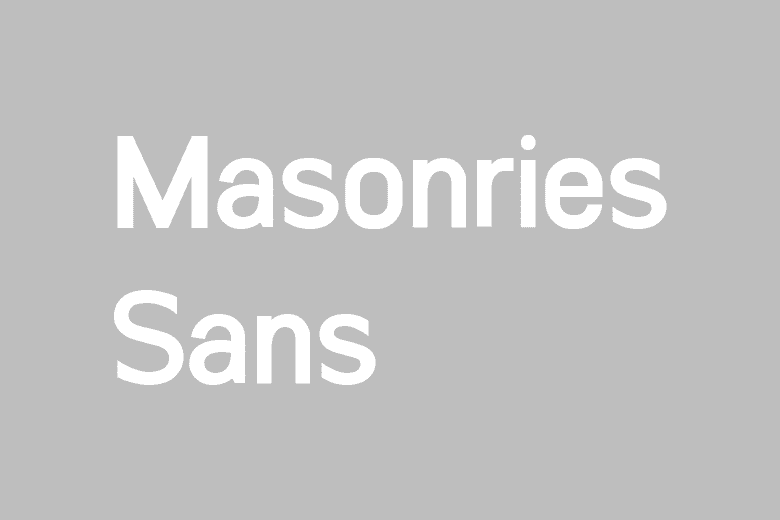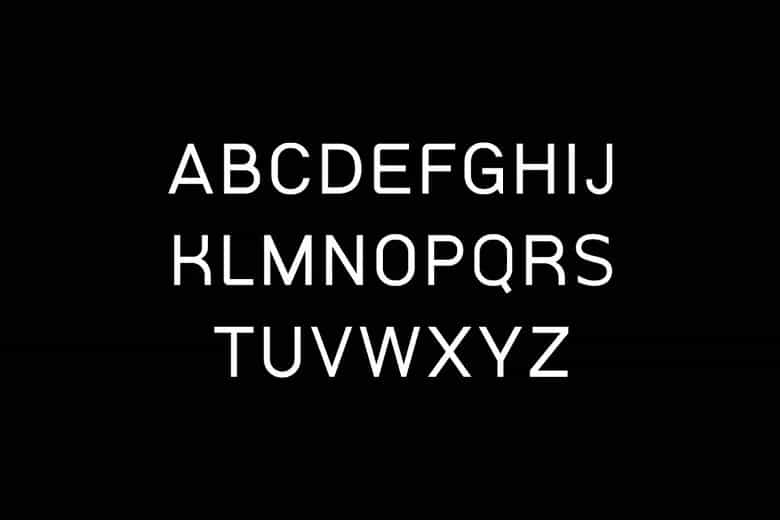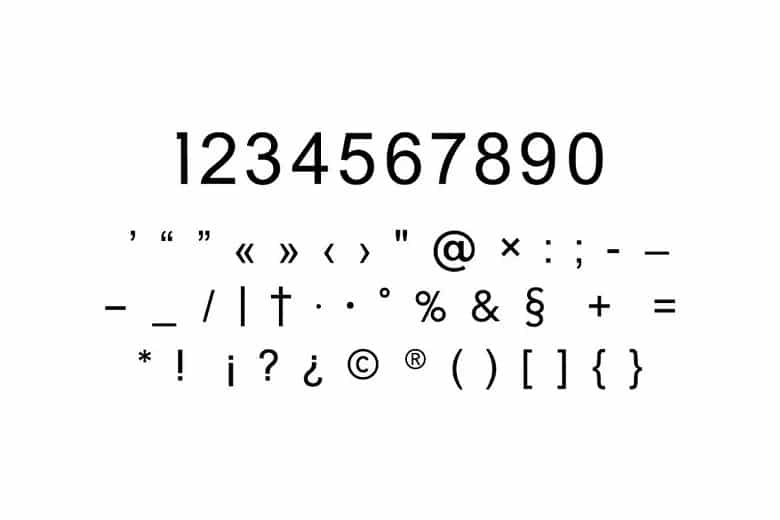
Masonries is a modern sans serif font family with elegant, and stylish look. It would be perfect for stationery, logo design, wedding, typography quotes, magazine or book covers website header, branding, and many others.